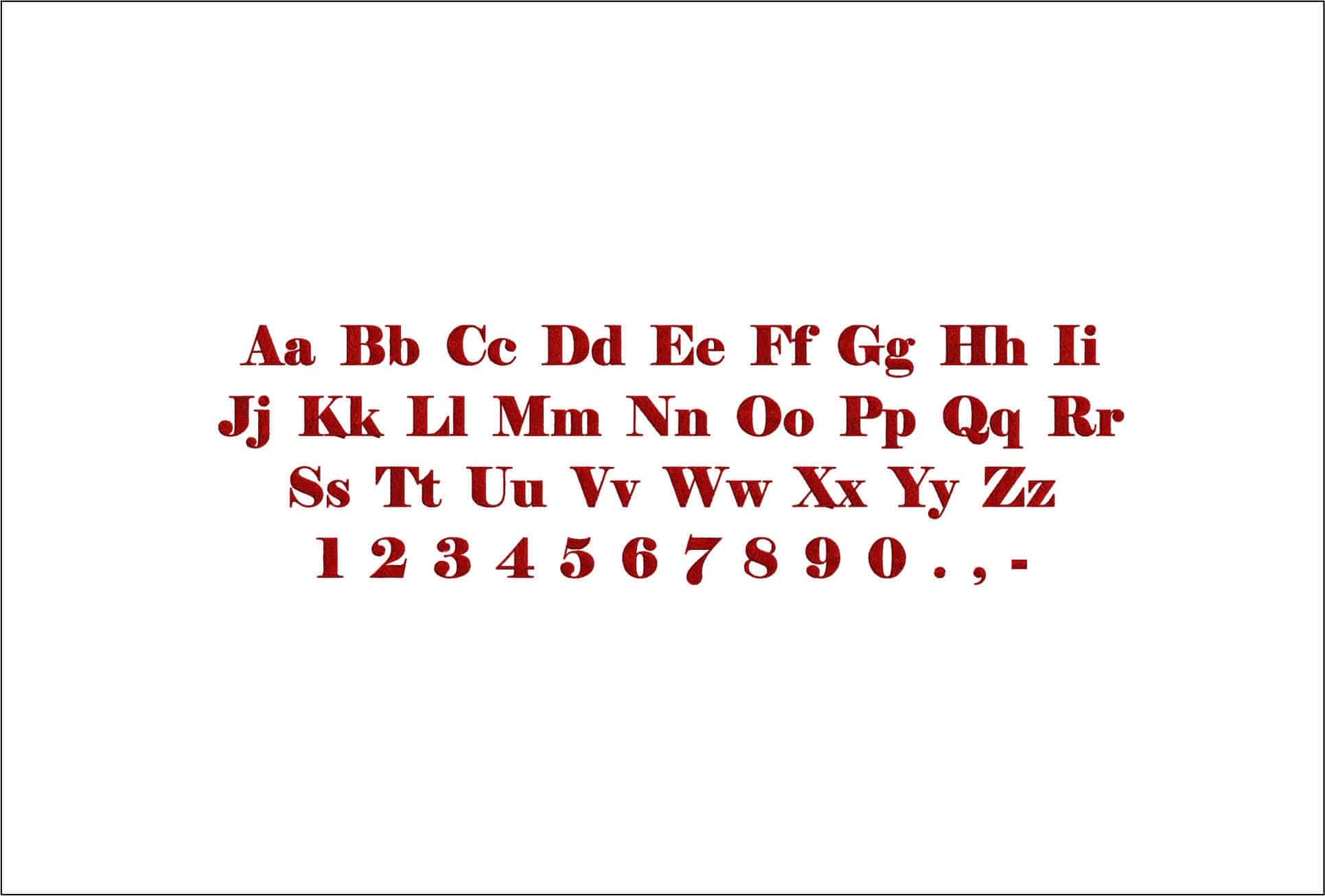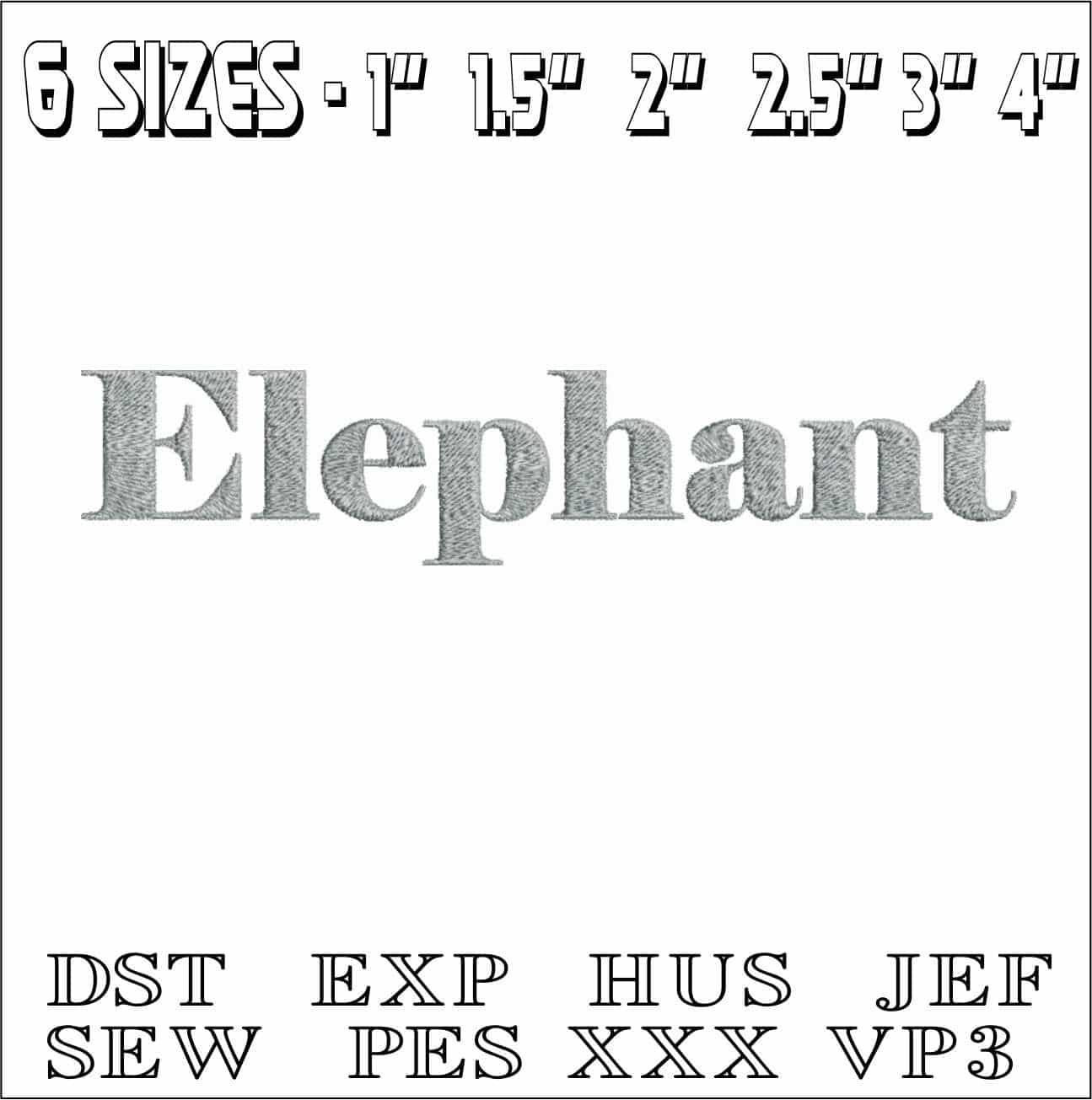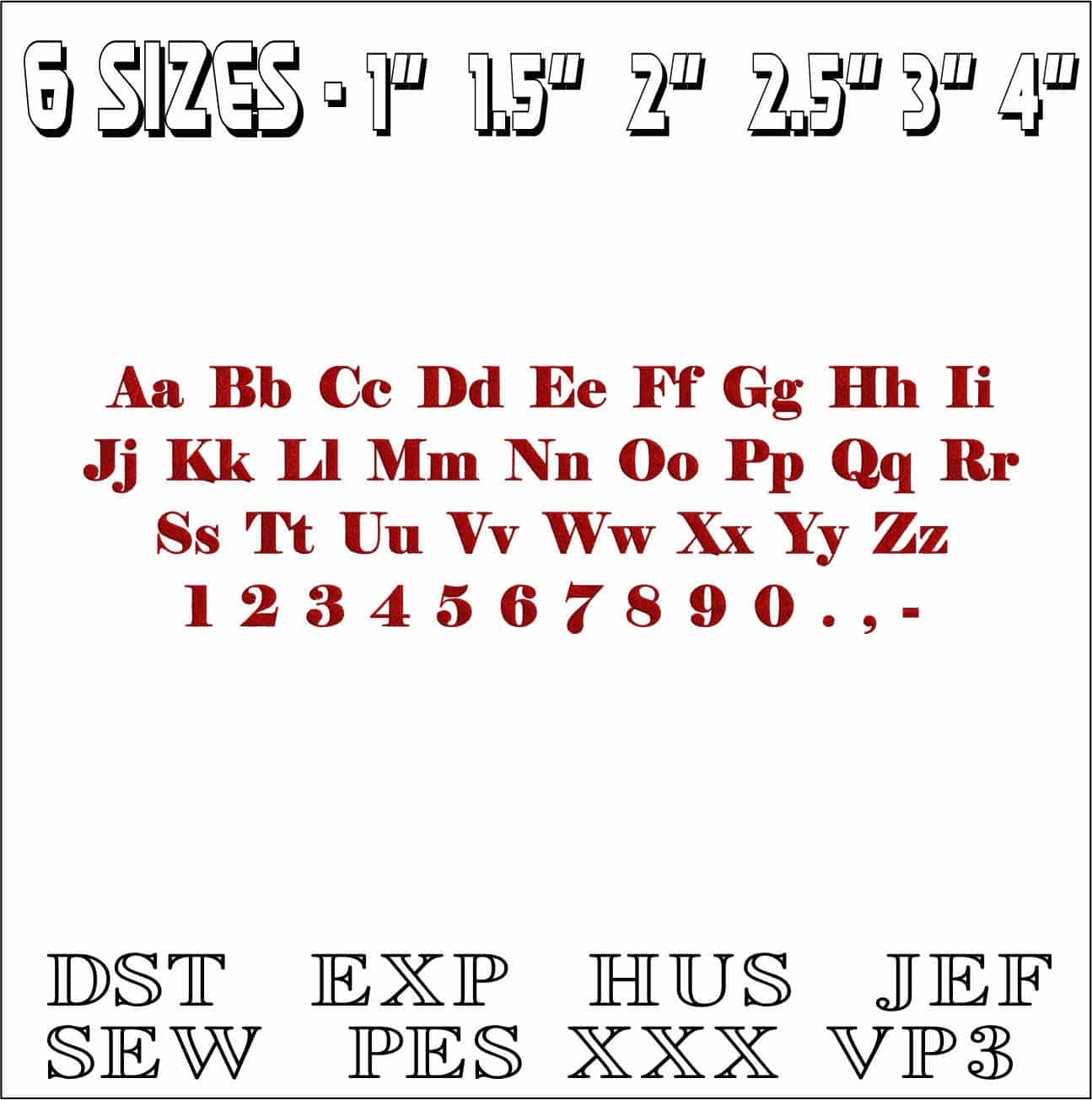
Elephant Font Embroidery Font Set - 1" 1.5" 2" 2.5" 3" and 4" - Machine Embroidery Alphabet Font - instant download
A neat serif embroidery alphabet with a classic, readable look for names, monograms and polished personalisation.
Give projects a clean, classic finish with this Elephant embroidery font, a serif alphabet set with uppercase and lowercase letters, numbers, and simple punctuation including a full stop, comma and hyphen. The letterforms have a tidy, traditional shape that suits makers who want personalisation to look smart rather than overly playful. It is a strong choice for children’s names, family initials, school items and understated monograms.
This style sits especially well on cotton bibs, quilt labels, pyjama bags, sweatshirt fronts and towel bands where clear lettering matters. The serif detail gives words a more tailored feel, so it works beautifully for surnames on linen napkins or first names on nursery storage. Because the characters are straightforward and readable, it is easy to build everything from a single initial to a full double-barrelled name without the text looking fussy.